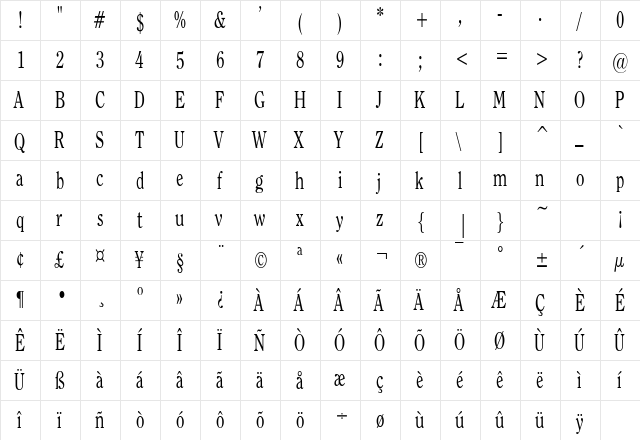
OxfordCondensed Regular
Design Context for OxfordCondensed Typeface
OxfordCondensed is a composed and adaptable typeface that performs quietly and consistently across a wide range of design contexts. Its narrow stance lets it pack a punch even in space-constrained designs.
Pro Tip: Use OxfordCondensed in both headline and body roles to test its range before committing to a single application.